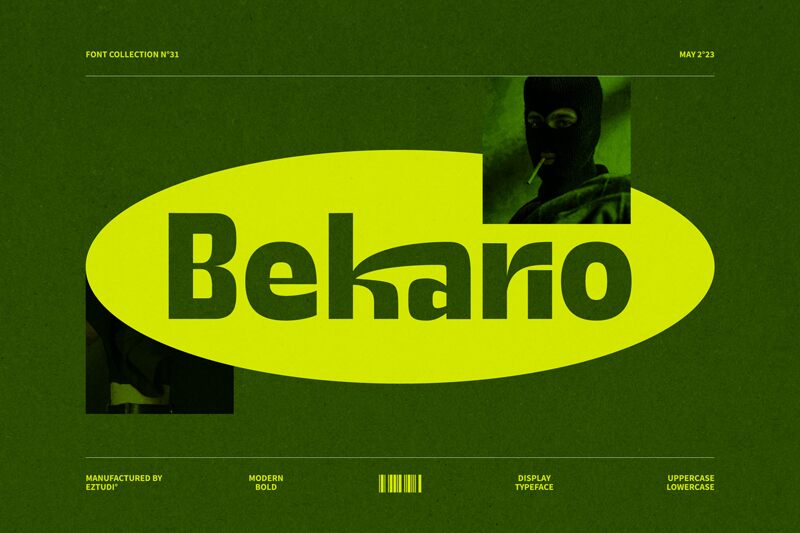
Ez-Bekario Sans Modern Display
Ez-Bekario Sans Modern Display font by Eztudio is a bold sans serif with clean geometric lines and a sturdy presence. Its industrial aesthetic carries modernist influences that are well noticeable in each letter phrase or paragraph it appears. The condensed width and thick weight contribute to an attention-grabbing typography style.